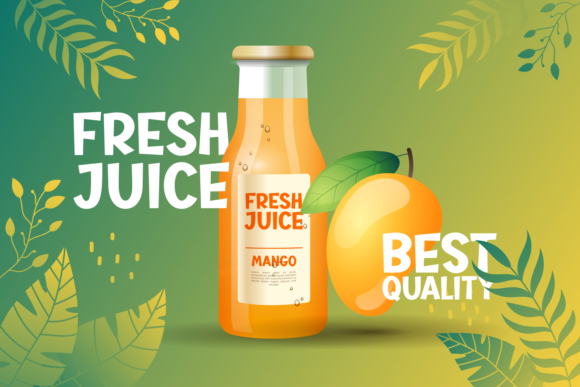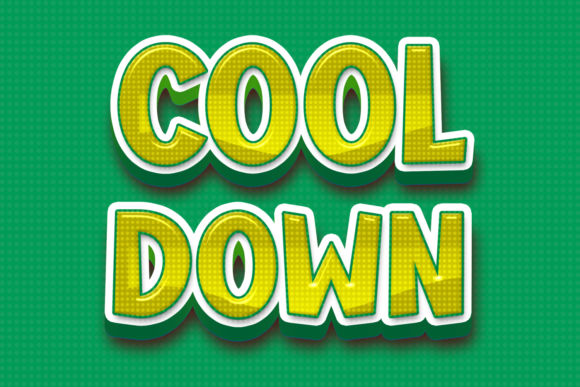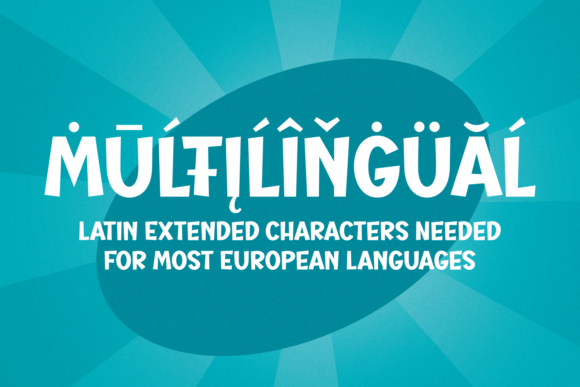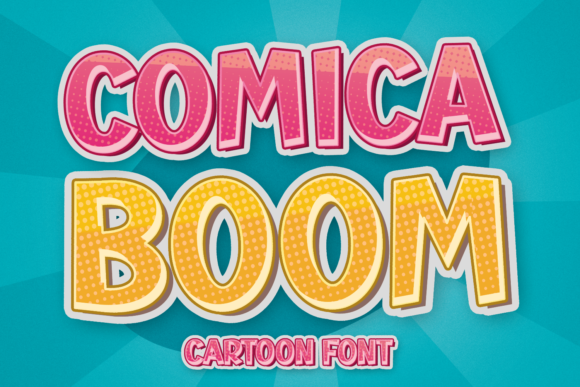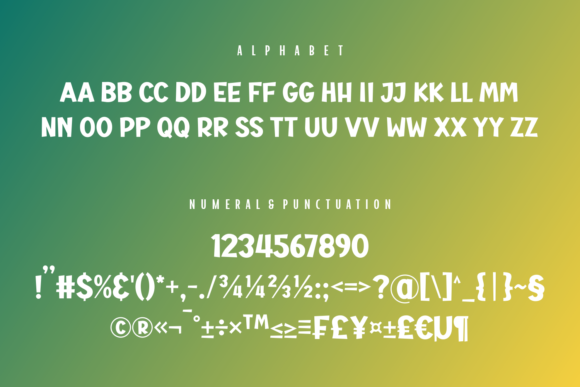
Comica Boom Font
Comica Boom is a fun, playful, and thick lettered display font. Whether you use it for cartoon-related designs, children's games, or just any creation that requires a lovely touch, this font will be an amazing choice.
Add this lovely Font to your creations and take your designs to the next level!